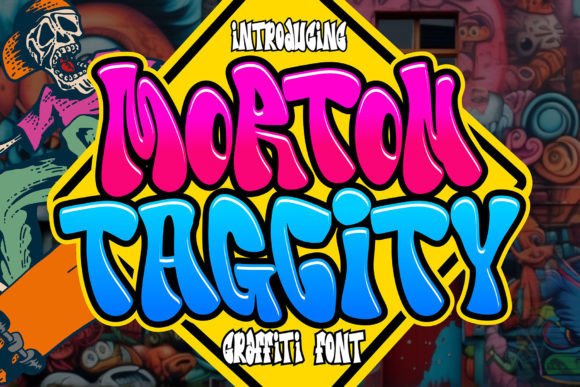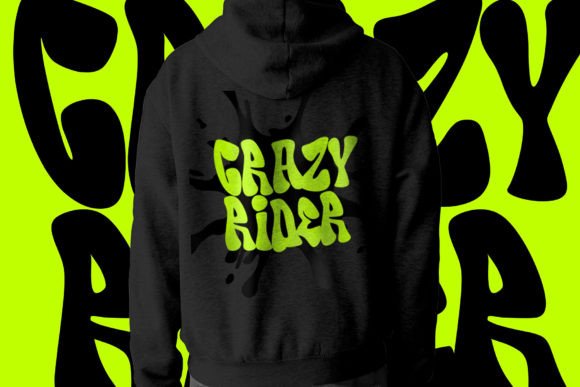
Morton Taggity Font
Morton Taggity” is described as an impressive graffiti font. Fonts within this category often exhibit bold, dynamic, and expressive letterforms typical of graffiti art. Such fonts are commonly used in urban-themed designs, street art, posters, and various creative projects aiming for a bold and eye-catching typographic style.
With “Morton Taggity,” you can create designs that convey urban aesthetics and the energetic spirit associated with graffiti art. Its bold and expressive nature makes it suitable for projects where a vibrant and impactful typographic style is desired.